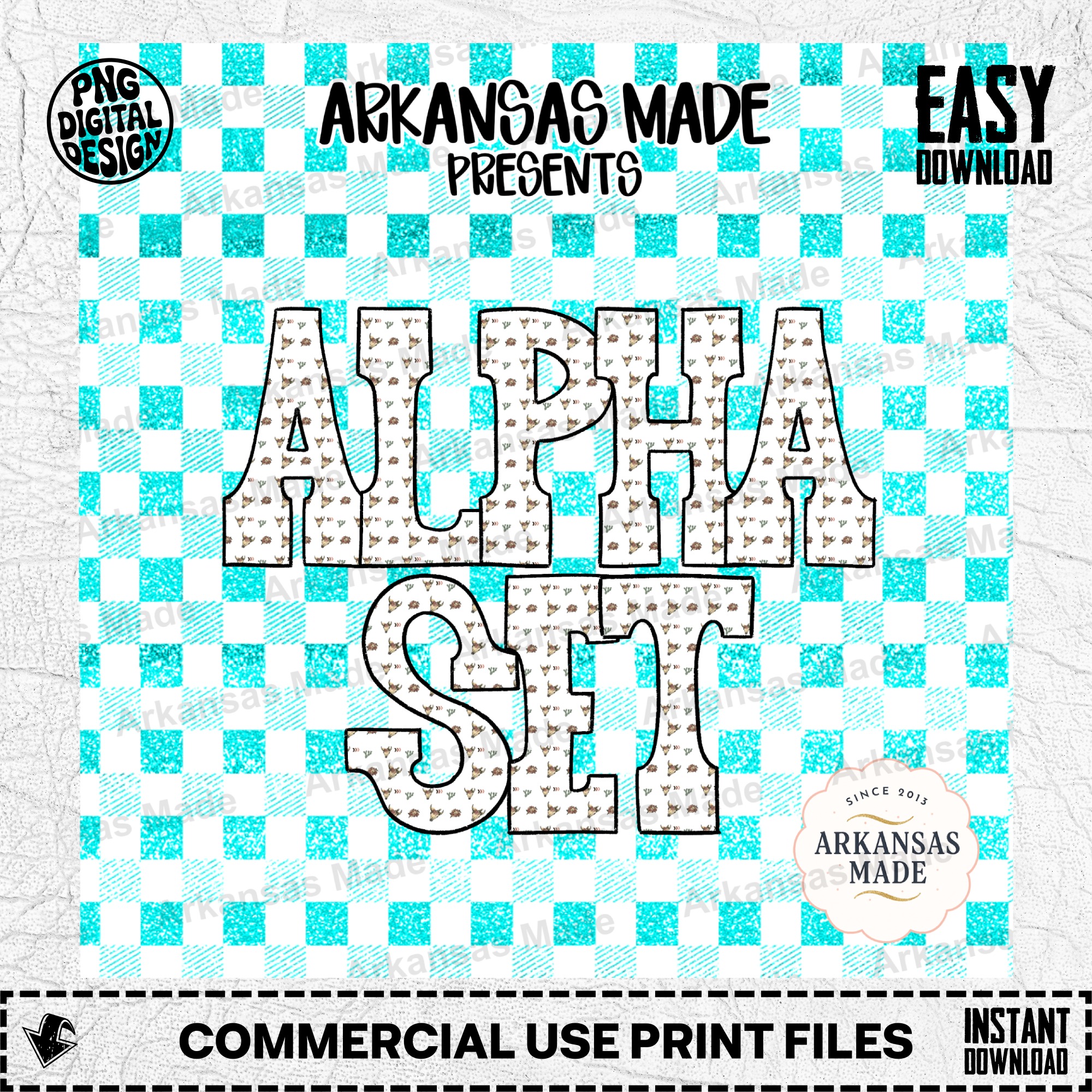
Unleash your creativity with this Western Alpha PNG Set, featuring unique bull skull and cactus letters perfect for all your digital crafting needs! Embrace the rustic charm of the Southwest with this distinctive digital alphabet. Ideal for crafters, designers, and anyone creating personalized items with a country or western aesthetic. Use these versatile letters for unique sublimation designs, custom monograms, printable art, or DIY projects that make perfect gifts for birthdays, housewarmings, or special occasions for the cowboy or cowgirl at heart.